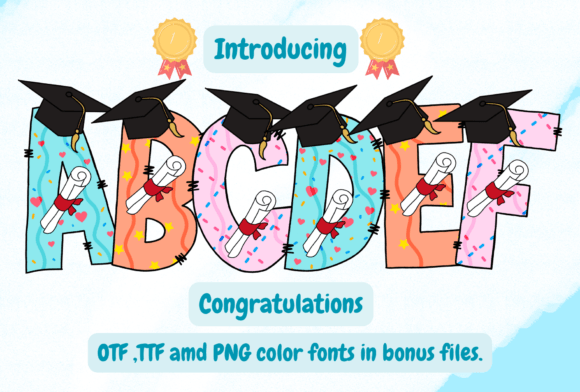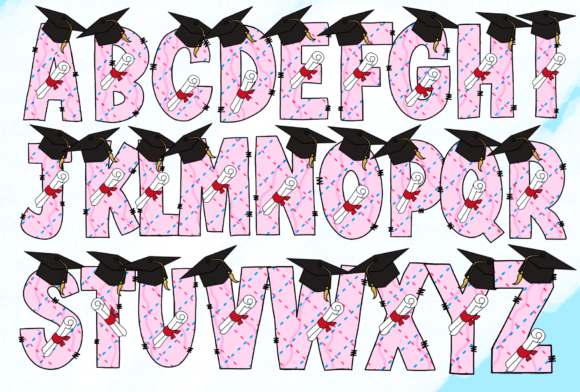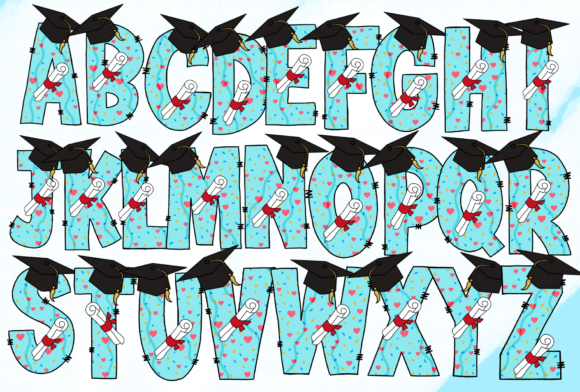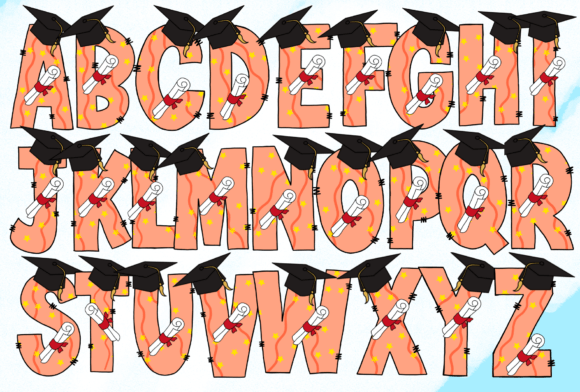
Congratulations Font
About the Congratulations Font
The wait is over! The incredible Congratulations Font is now available for your design toolkit. Congratulations is a fancy font decorated with graduation hats and diplomas, perfect for celebrating achievements! It comes with bonus PNG images in three vibrant colors to add extra flair to your designs.
Congratulations Font’s playful design makes it ideal for headlines, short celebratory messages, and branding for educational institutions or achievement-oriented businesses. It works exceptionally well on invitations, certificates, and posters where its decorative elements add a festive touch. However, its ornate style is unsuitable for body text or UI elements; the detailed glyphs would be difficult to read in smaller sizes or extended use.
The overall personality is cheerful and celebratory, conveying a sense of accomplishment and fun. Its best applications are projects requiring a lighthearted yet sophisticated touch.